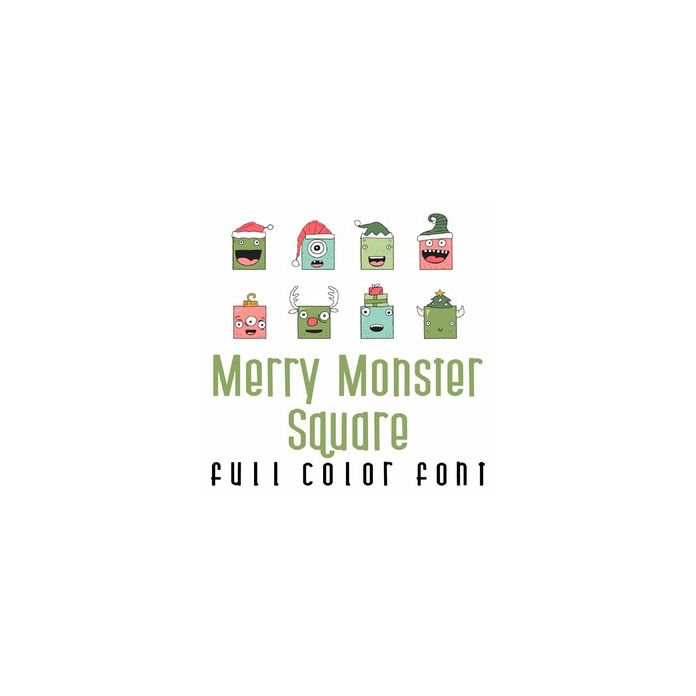
This fun full color doodlebat font features 26 doodle style Christmas monsters. Perfect for cards, crafts, gifts, decor, scrap book pages, planner stickers and more!